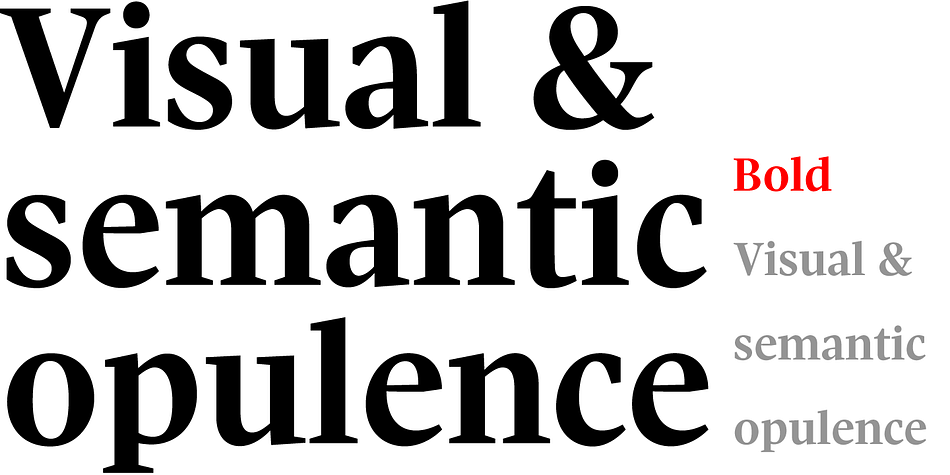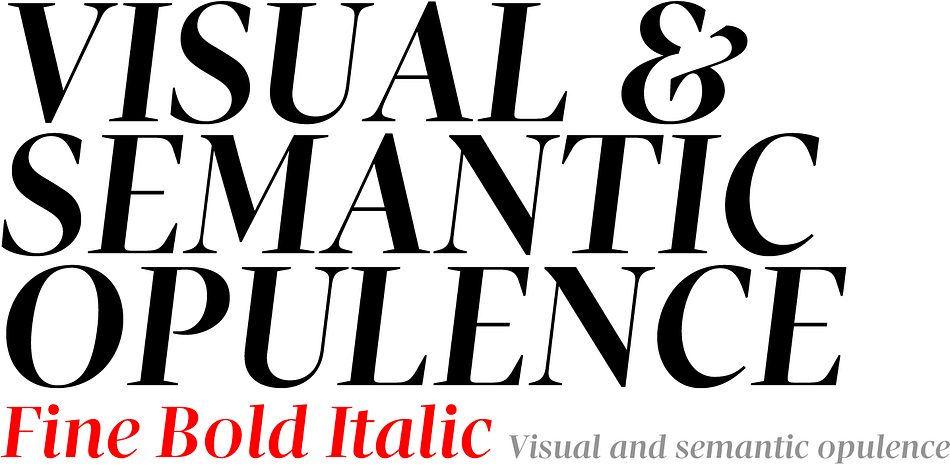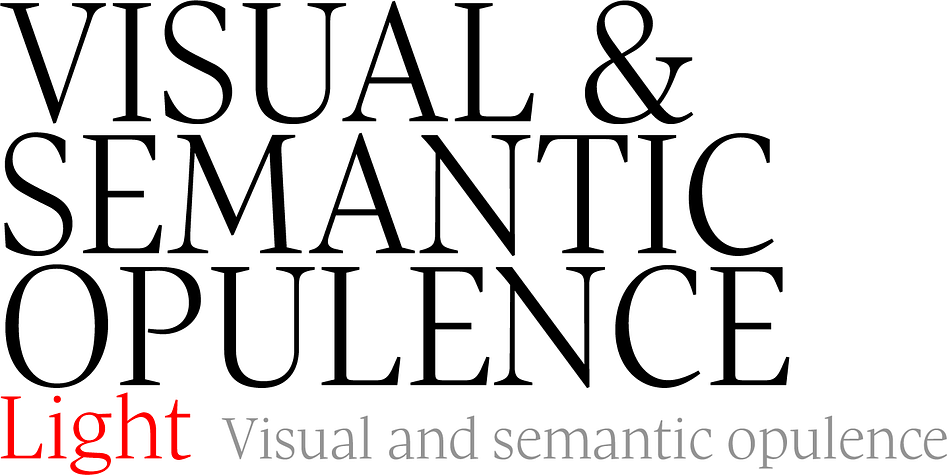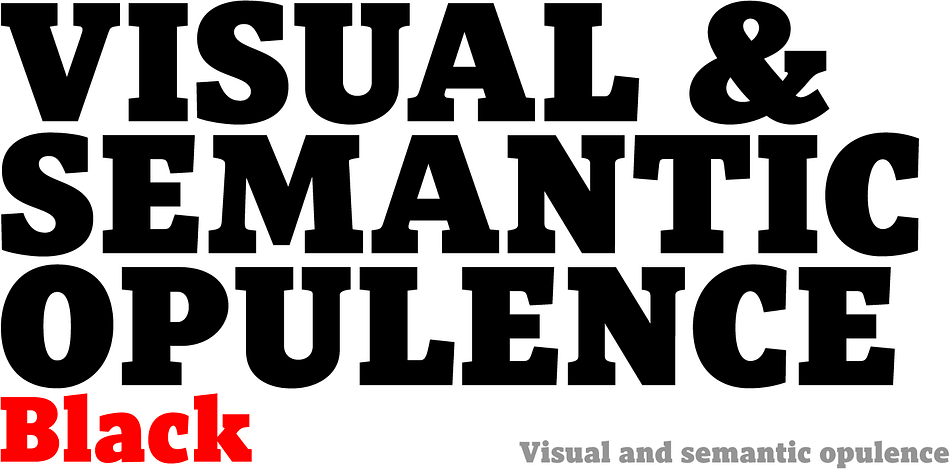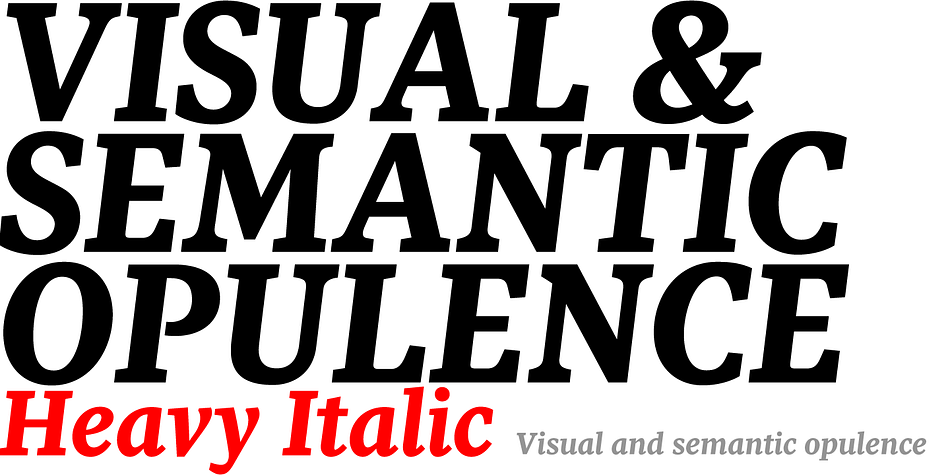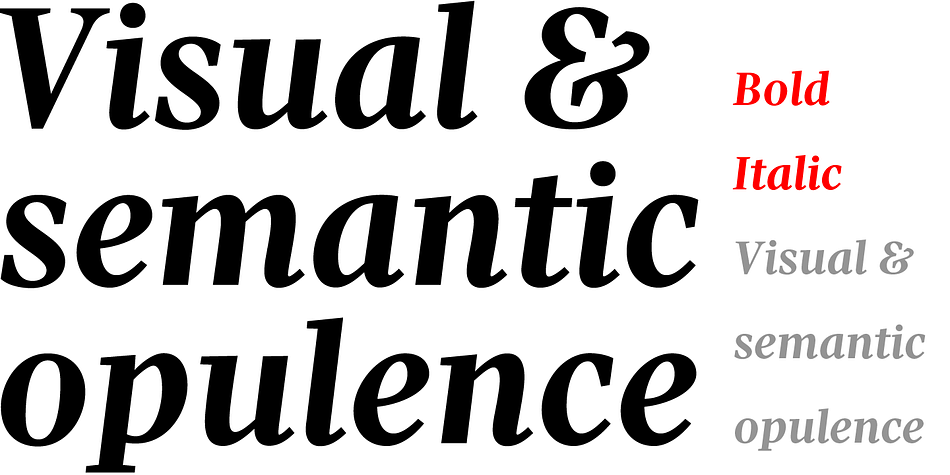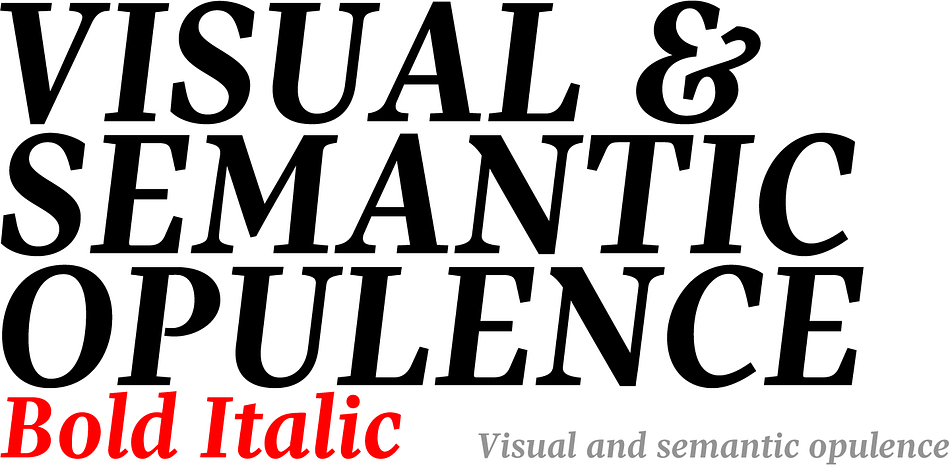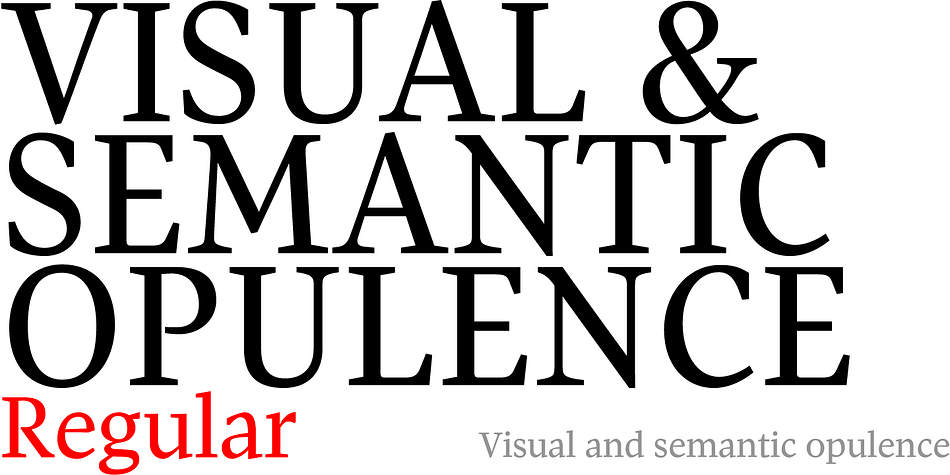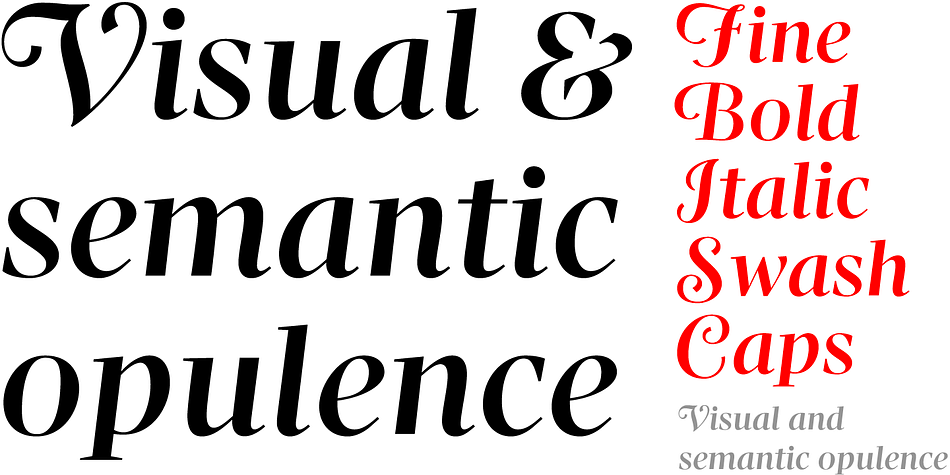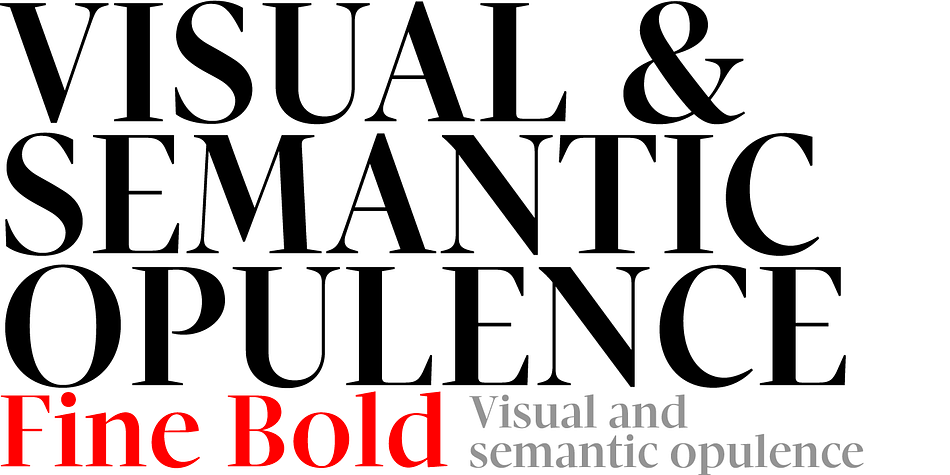
Pratt Nova is a serif font family. This typeface has seventeen styles and was published by Shinntype.
Shaped by constraint to accommodate a heavy character count, Pratt Nova has a massive form: semi-condensed, large x-height, short descenders and capitals. And yet it transcends its restrictive origins in abundance, expressing a spirit of visual and semantic opulence, equipping the typographer with a comprehensive array of harmonized fonts, all rigorously drawn, superbly fitted iterations of a single, profoundly original design.